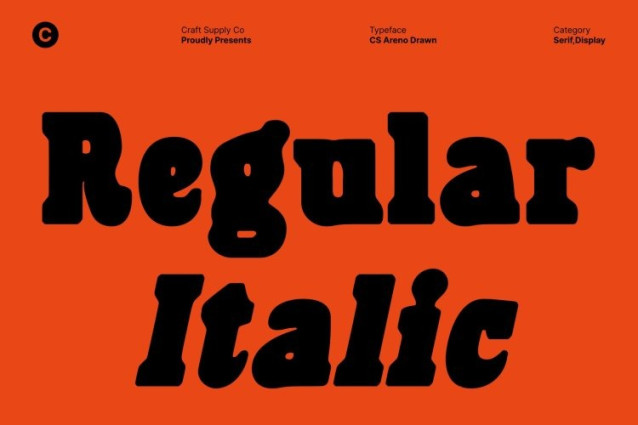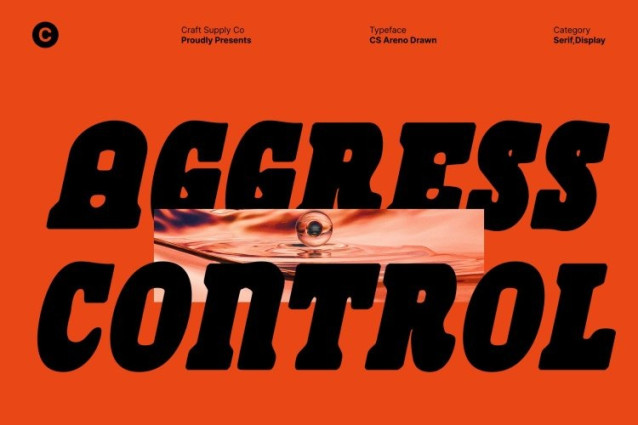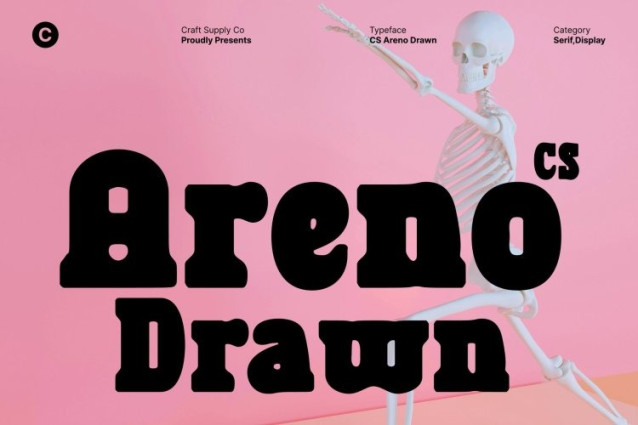
CS Areno Drawn Font
CS Areno Drawn Font This is a slab serif font that blends retro charm with modern assertiveness, enhanced by a distinctive drawn texture. Its bold serifs, sturdy construction, and vintage-inspired forms create a confident visual identity, while the hand-drawn details add warmth and personality. This combination makes the font feel expressive, strong, and full of character.
Built for Maximum Readability and Striking Display
Designed for clear communication, this font performs exceptionally well in display use. Thick strokes and balanced proportions ensure high legibility, even from a distance. The added drawn effect brings subtle texture without compromising clarity, making it ideal for headlines, posters, advertisements, billboards, and other high-impact designs.
Modern Strength with a Timeless Retro Feel
Although rooted in retro slab serif aesthetics, this font feels fresh and contemporary. Clean geometry and assertive letterforms give it a solid, dependable presence, while the handcrafted look softens the structure and keeps it visually engaging. This balance makes the font suitable for both nostalgic and modern design concepts.
Perfect for Bold Branding and Dynamic Visuals
This font adapts seamlessly to branding, sports visuals, event posters, and bold packaging. Its assertive style and retro spirit help designs feel energetic, memorable, and commanding. When you need typography that feels strong, confident, and full of personality, delivers lasting impact.